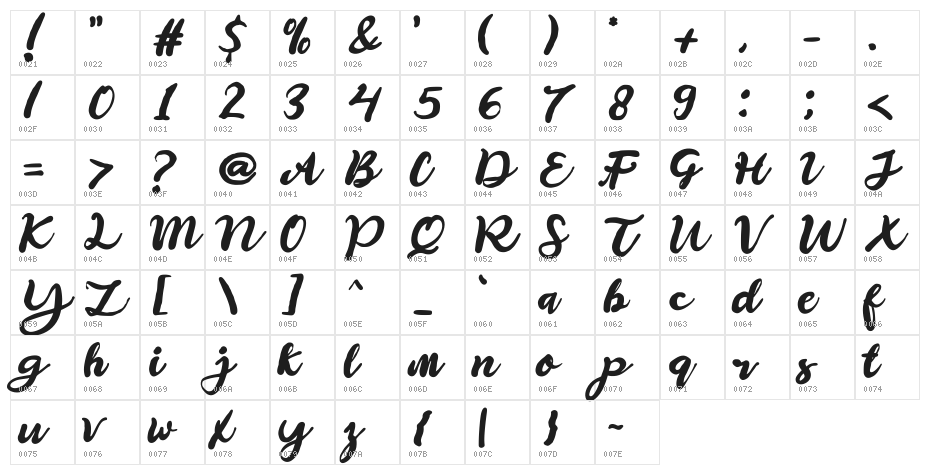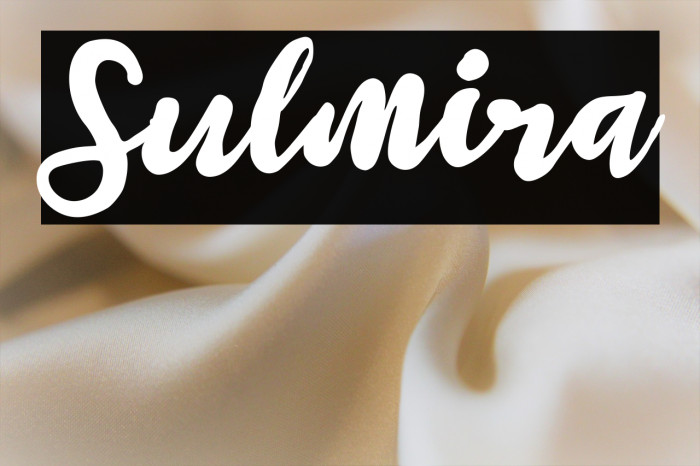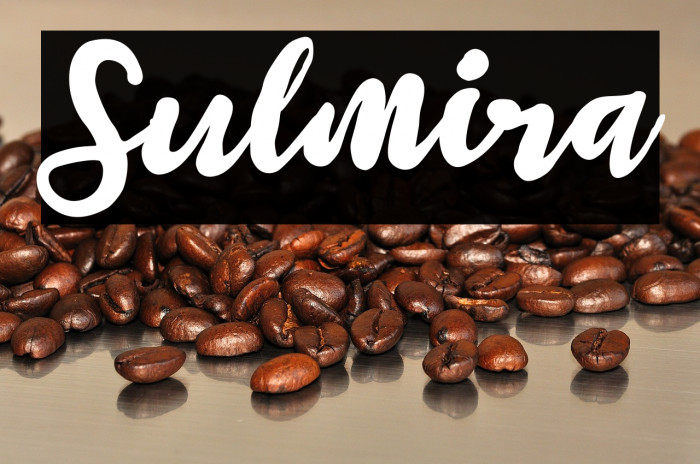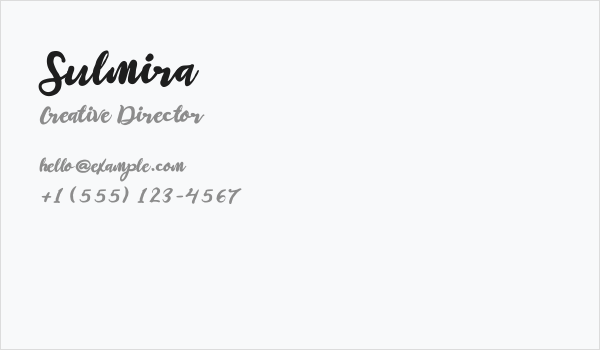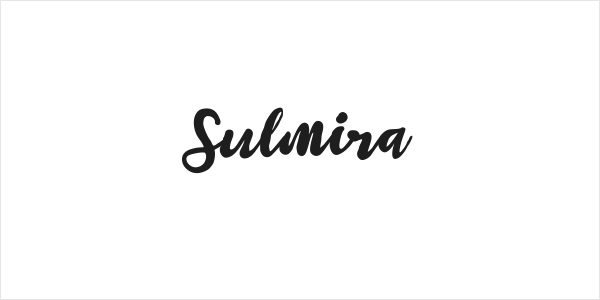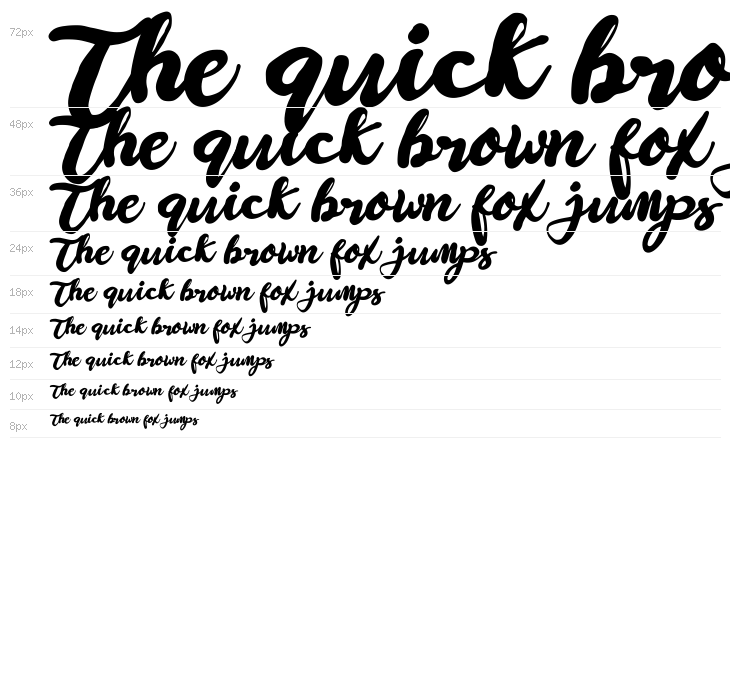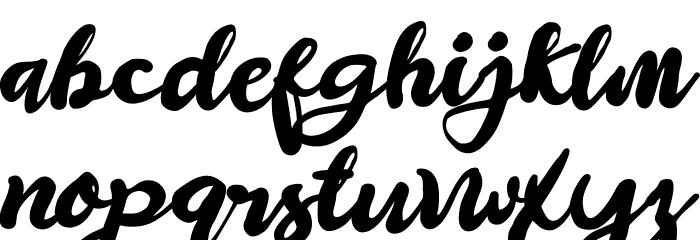
Sulmira Font
Sulmira Description
This font features a bold and expressive script style, characterized by its flowing, cursive letterforms. The strokes are thick and consistent, giving it a strong presence on the page. The uppercase letters are elegantly designed with smooth curves and loops, while the lowercase letters maintain a cohesive flow, enhancing its handwritten appeal. The numerals and special characters are crafted with the same attention to detail, ensuring uniformity across all glyphs. This font exudes a sense of creativity and personal touch, making it ideal for projects that require a personal or artistic flair.
| Proposed Projects | Ideal for wedding invitations, greeting cards, logos, and branding materials that require a personal touch. |